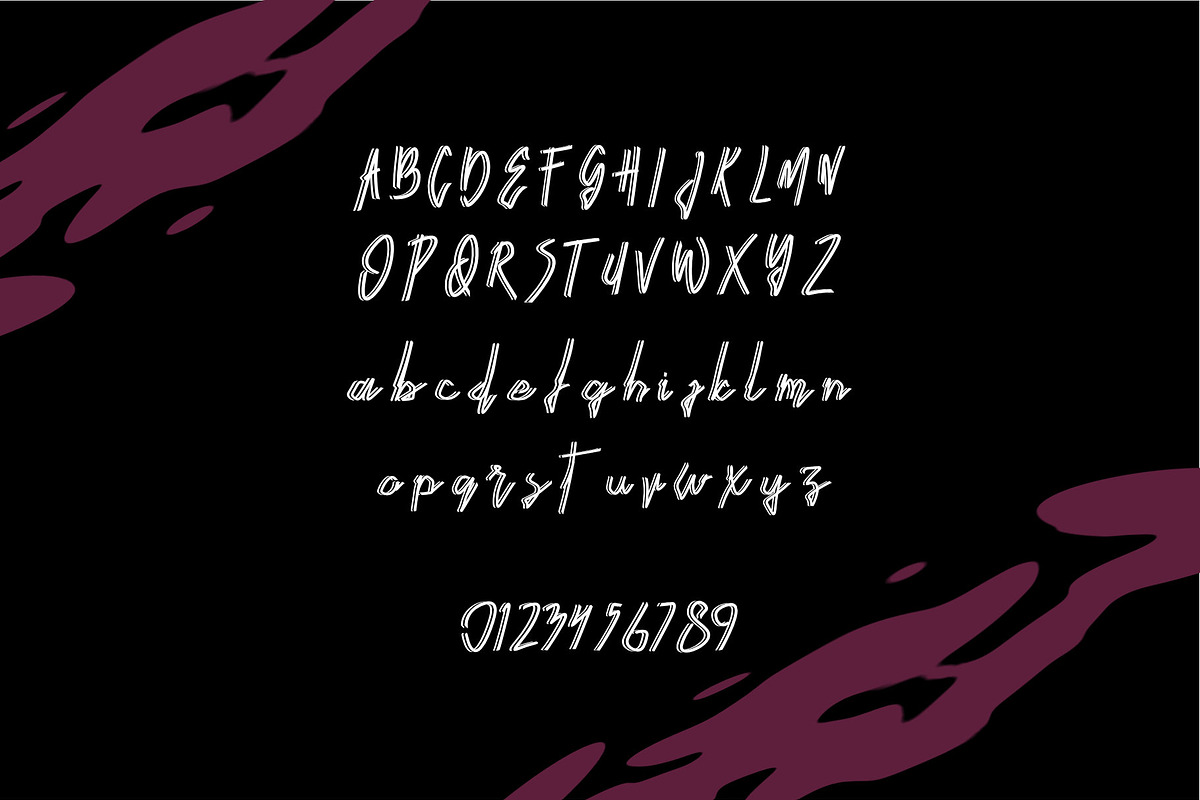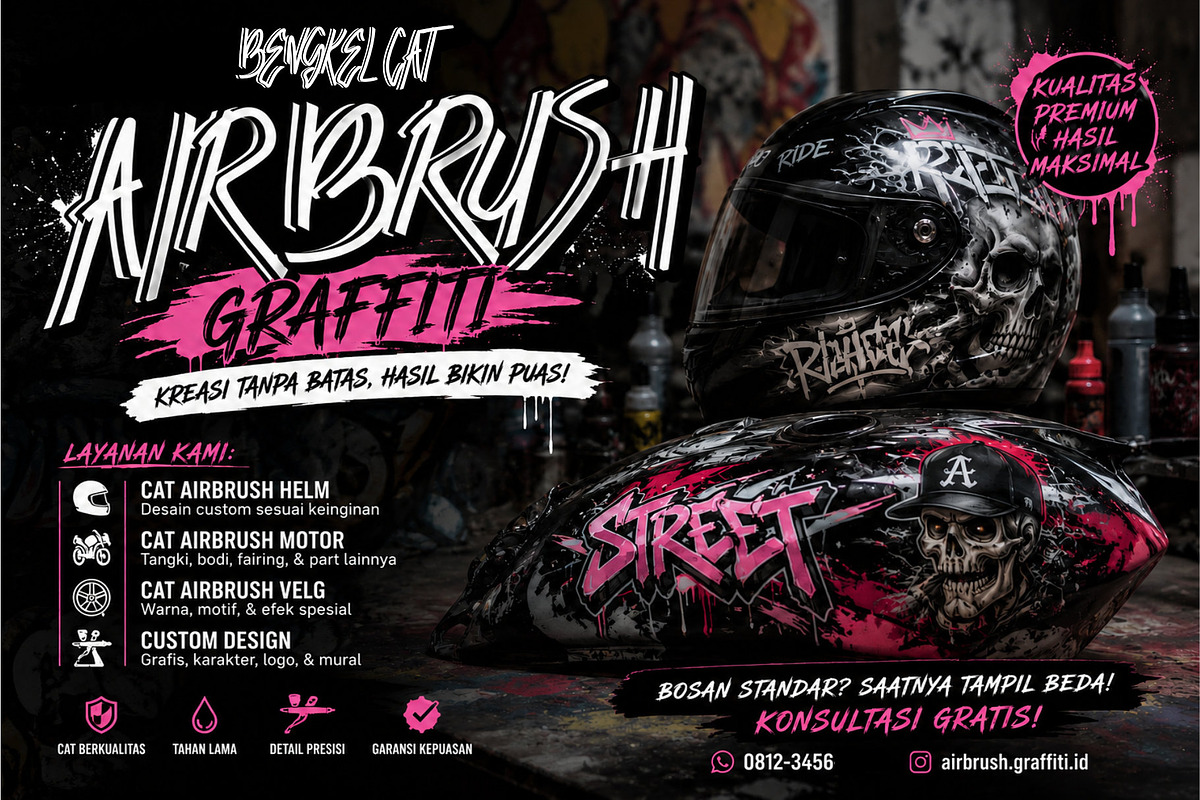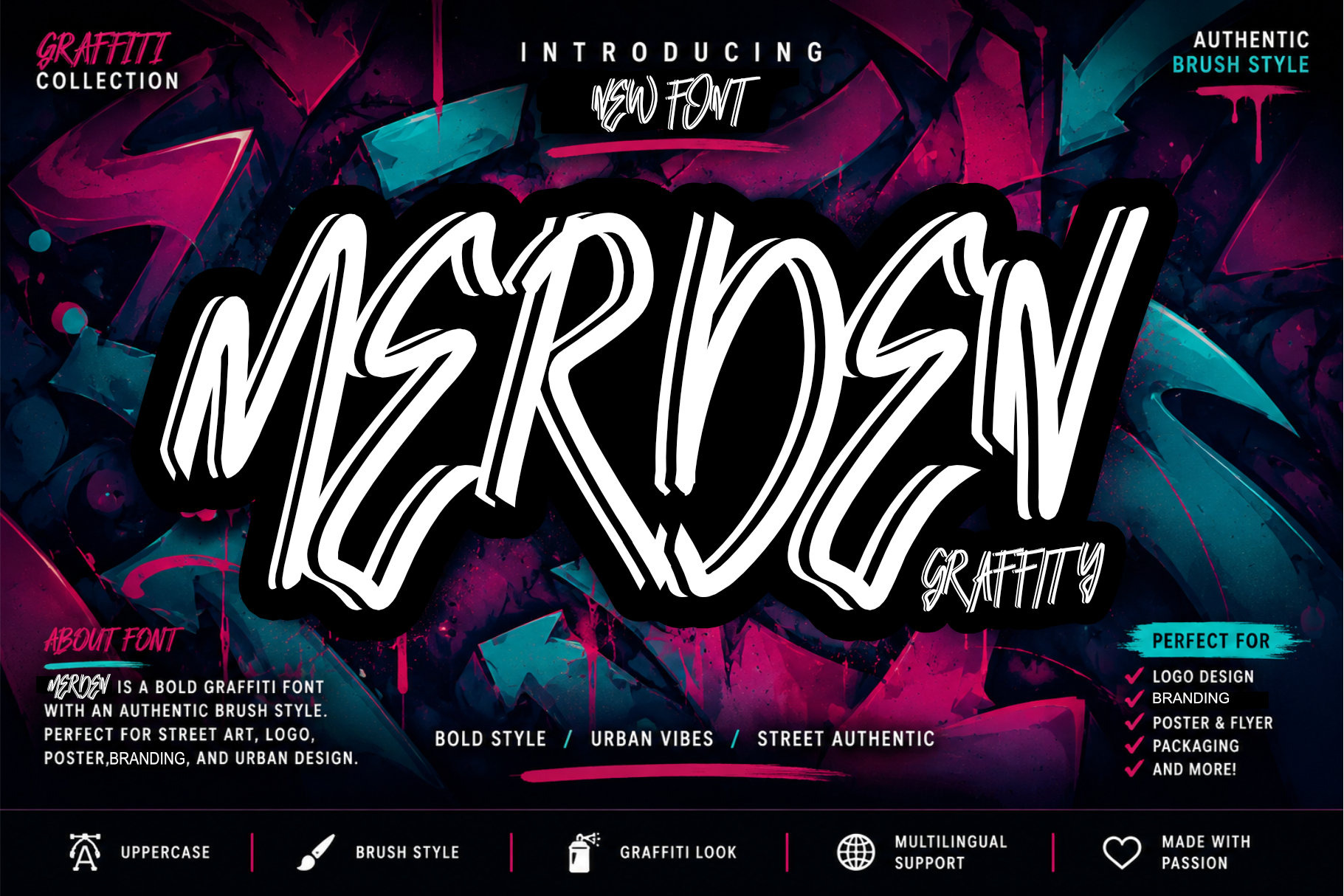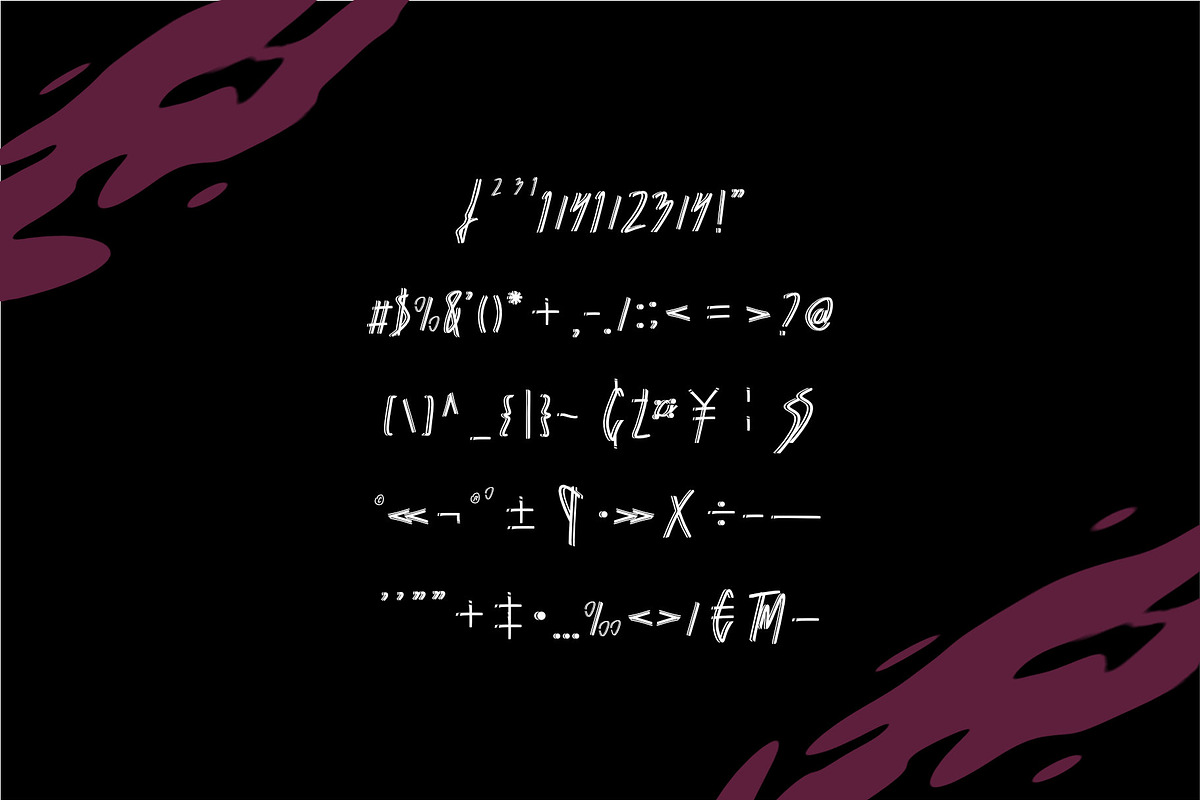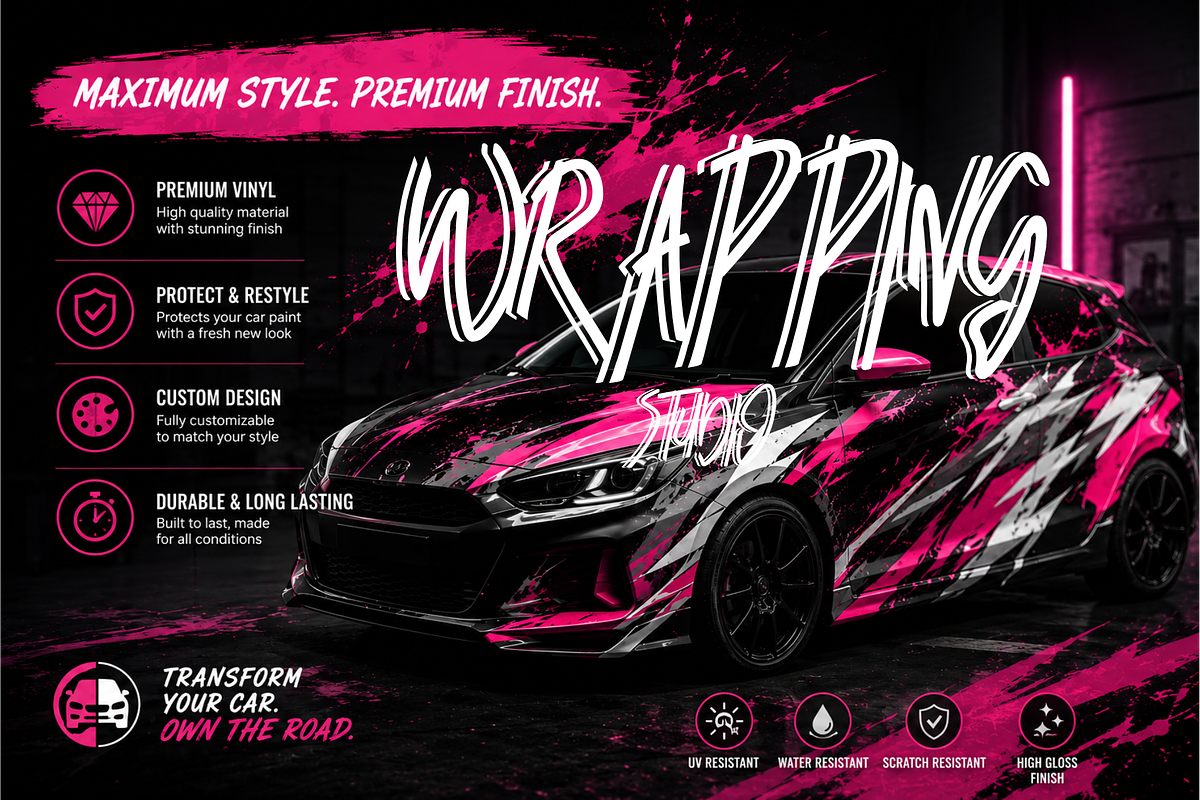
Merden Graffiti Font
Merden Graffiti is new font from WAP Typefoundry, strong feel character set. To create the beautiful combination, just mix the uppercase and lowercase then mix with the alternative glyphs.Merden Graffitis insfire from graffiti style.